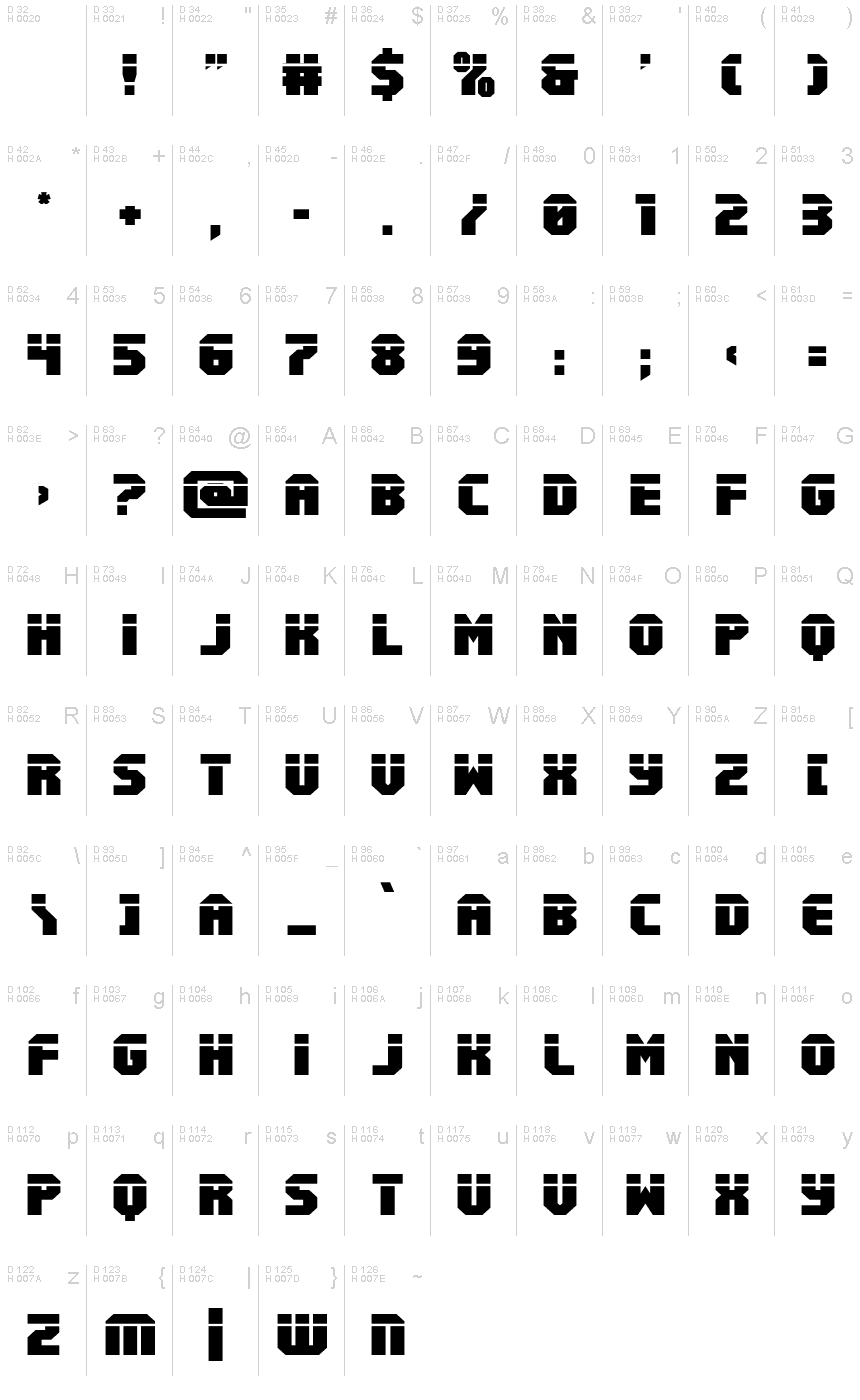
Metal Sentinel Laser
Metal Sentinel Laser is a bold techno display font designed by Daniel Zadorozny. It's part of the Metal Sentinel family and offers a unique and modern appeal. This font is perfect for creating eye-catching titles and headlines, as well as futuristic logos. Its bold style ensures that your message stands out with impactful visuals. Metal Sentinel Laser is ideal for sci-fi projects, action games, or any project looking to bring an edgy look to their design.